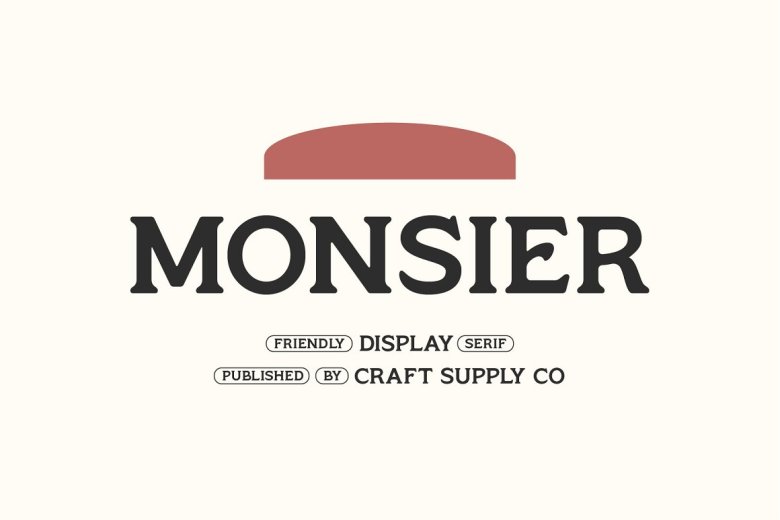
Monsier Font
Monsier – Friendly Display Serif This is a heavy serif font family design based on the didones typefaces ( Modern Serif ) and an bit of slab serif. Monsier – Friendly Display SerifThe unique traits of Monsier are the low stroke contrast, the sightly square patterns of the round characters, and the business like simplicity.
Monsier — Friendly Display Serif — It draws from pure geometry and optical balance in its structural logic, entirely built from scratch. Its wide x height combination also allows for various serif-based design styles: Logos, greeting cards, quotes, posters, branding, name card, stationary, design title, blog header, art quote, typography
Monsier – Friendly Display Serif perfect for art, modern envelope lettering or book design, happening style like handdrawn design or watercolor design theme, craft design, any DIY project, book title, wedding font, pop vintage design or any purpose to make our art/design project look pretty and trendy.
Monsier Display Serif Font